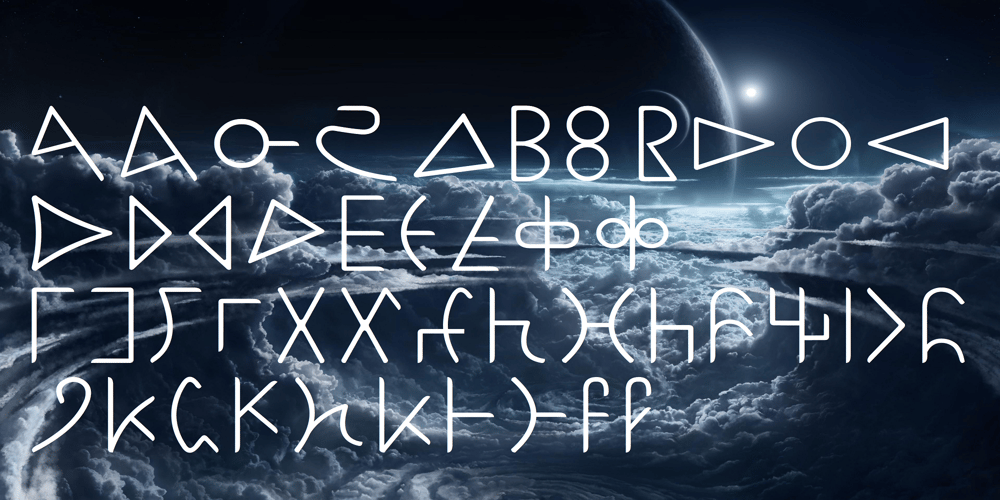
Ongunkan Bactrian Script Font Family was designed by Osman Nuri ALKAN and published by Runic World Tamgacı. Ongunkan Bactrian Script contains 1 styles and family package options. Bactrian (Bactrian: Αριαο, ariao, [arjaː], meaning “Iranian”) is an extinct Eastern Iranian language formerly spoken in the Central Asian region of Bactria (present day Afghanistan) and used as the official language of the Kushan and the Hephthalite empires.Bactrian, which was written predominantly in an alphabet based on the Greek script, was known natively as αριαο [arjaː] (“Arya”; an endonym common amongst Indo-Iranian peoples). It has also been known by names such as Greco-Bactrian, Kushan or Kushano-Bactrian.